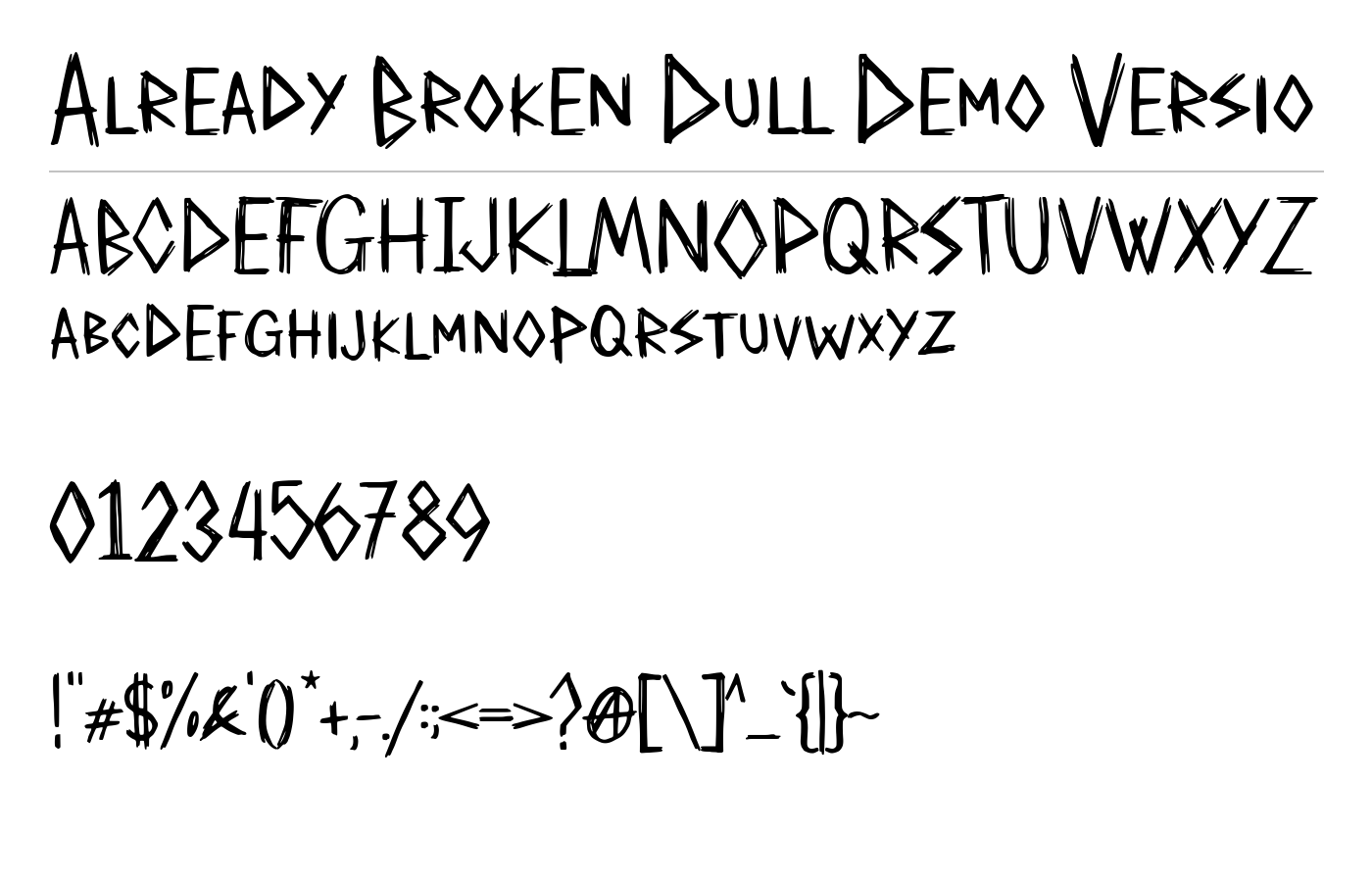
Already Broken Dull Demo Versio is a quirky, hand-drawn sans serif font with a casual, rough-edged style that feels playful and artistic. Its uneven strokes and scratchy texture give it an energetic, informal personality, ideal for creative projects, comics, or edgy branding that seeks a distinctive, handmade look. This font works best in headlines, posters, or logos where its unique character can stand out and add expressive impact.
Already Broken Dull Demo Versio Font
About Already Broken Dull Demo Versio Font